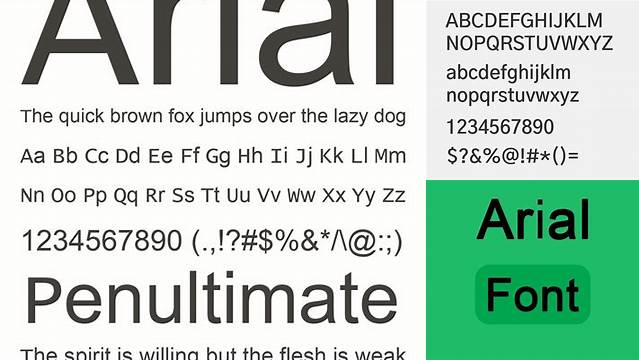
Hey guys! Let's dive into the awesome world of free Arial fonts! Arial, that trusty and familiar typeface, is a staple for a reason. It's clean, readable, and just gets the job done. This guide is all about getting your hands on these fonts without spending a dime. We'll cover where to find them, how to install them, and even some cool tips on using them effectively. Ready? Let's roll!
Finding the Best Free Arial Alternatives
Sometimes, you might want a little variety, or maybe you're looking for something slightly different from the classic Arial. That's where exploring free Arial alternatives comes in handy. There's a whole world of typefaces out there that offer a similar feel, readability, and versatility as Arial, but with a unique twist. Think of it like trying different flavors of ice cream; you might discover a new favorite! Helvetica, Arial's famous (or infamous) competitor, is a great starting point, although it's not always available for free. Open Sans, a popular font on Google Fonts, shares a similar clean and modern aesthetic and is totally free to use. Other excellent options include Liberation Sans, a free and open-source font designed as a metric equivalent of Arial (meaning it looks the same at the same point size), making it perfect if you need to replace Arial without changing layout, and Lato, a sans-serif font with friendly letterforms. When choosing alternatives, consider your project's needs. Do you need something for body text, headlines, or both? Is readability a top priority? Do you want a font with a slightly more distinctive personality? By exploring these alternatives, you can expand your font library and find the perfect typeface for any design project. Remember, variety is the spice of life, and the world of fonts offers plenty of spice to experiment with. Having access to a few different styles of Arial also makes for a more creative project.
Arial Font Styles and Variations: Exploring the Options
One of the great things about the Arial font family is the variety of styles and variations available. Beyond the standard Arial Regular, you'll find a range of options to suit different design needs. Let's explore some of the most common styles:
- Arial Bold: This is a heavier version of Arial, perfect for headings, subheadings, and emphasizing important text. It adds visual weight and makes your text stand out.
- Arial Italic: This style features a slanted version of the Arial typeface. It's great for adding emphasis, indicating foreign words, or creating a more elegant feel.